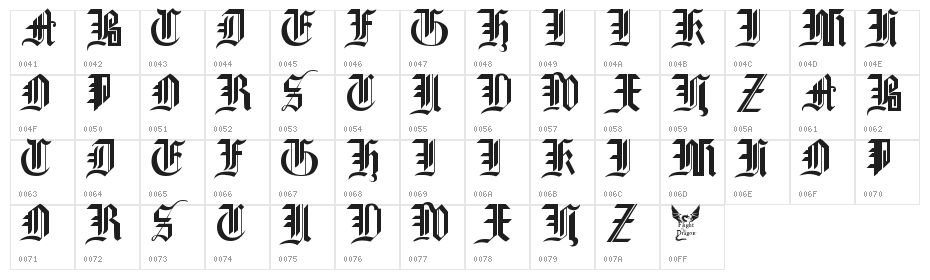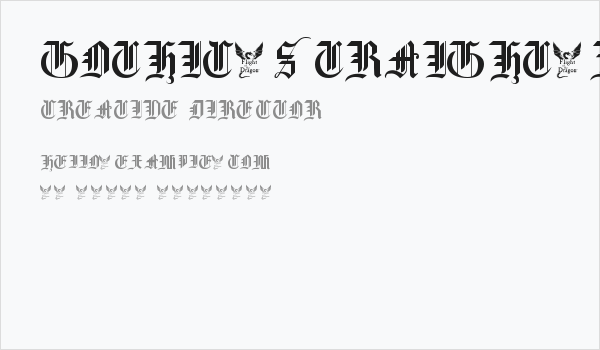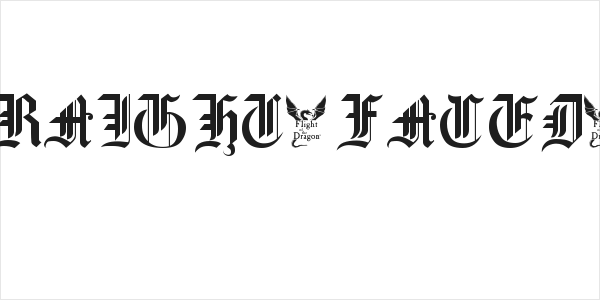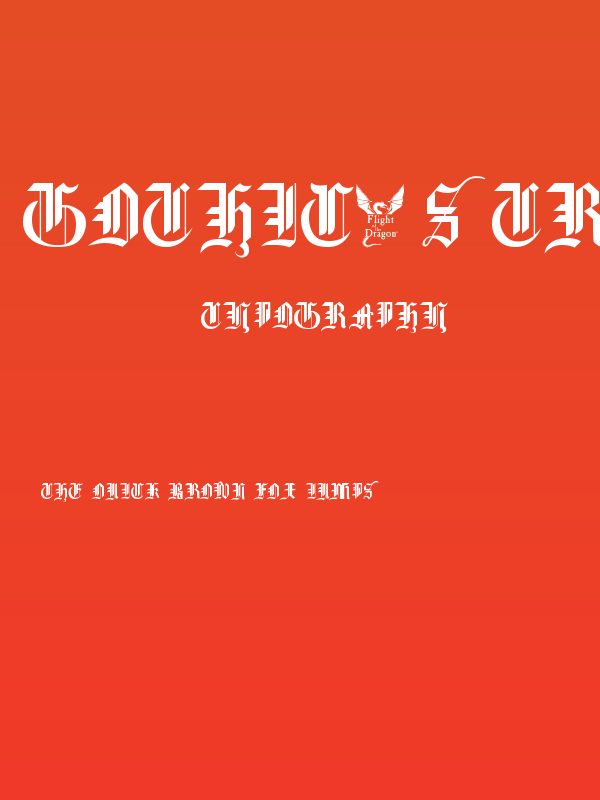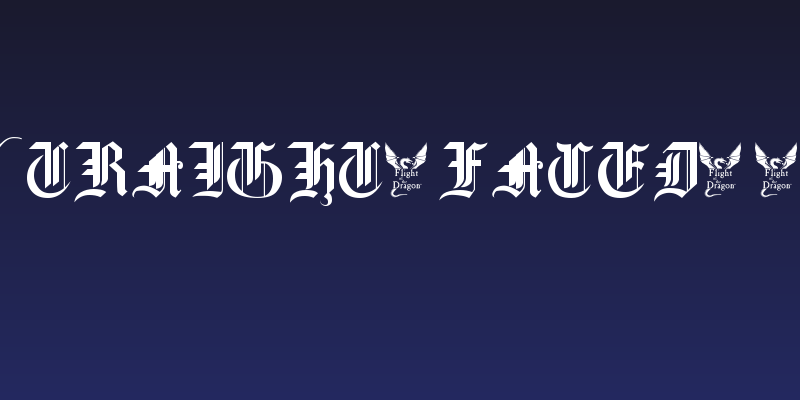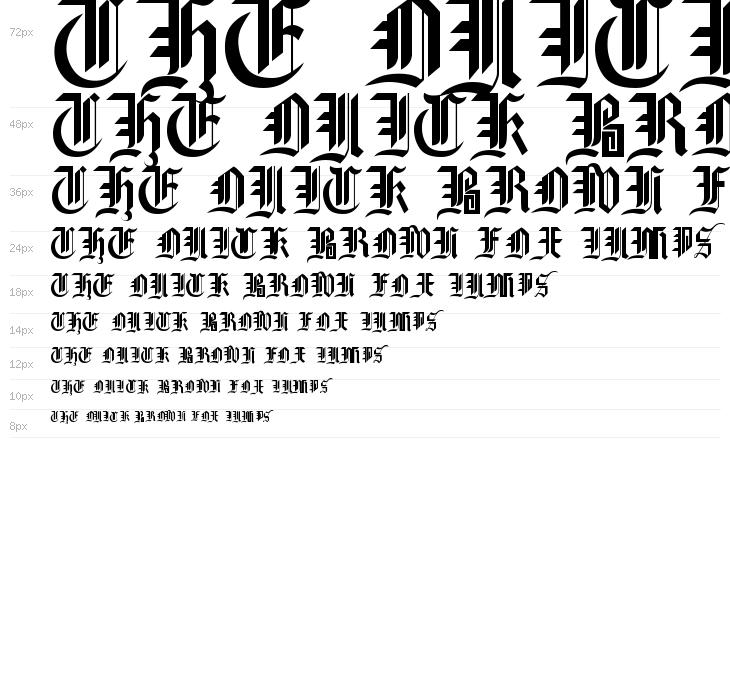
Gothic-Straight-Faced--16th-c- Font
Gothic-Straight-Faced--16th-c- Description
This font exhibits a classic Gothic style with a straight-faced design reminiscent of 16th-century typography. The characters are bold and angular, featuring sharp serifs and intricate detailing that evoke a sense of historical elegance. The uppercase letters are particularly ornate, with elaborate flourishes that enhance their visual impact. The lowercase letters maintain the same level of detail, ensuring consistency throughout the typeface. This font's design is both decorative and legible, making it suitable for projects that require a touch of sophistication and tradition.